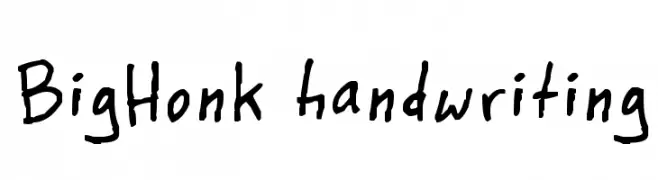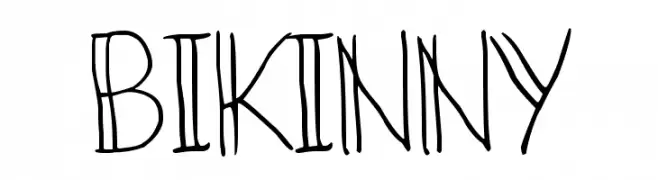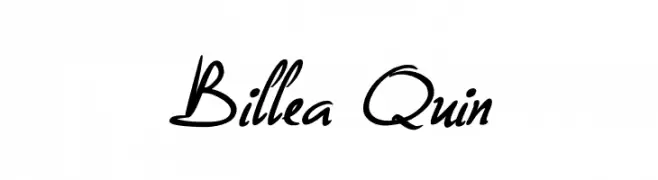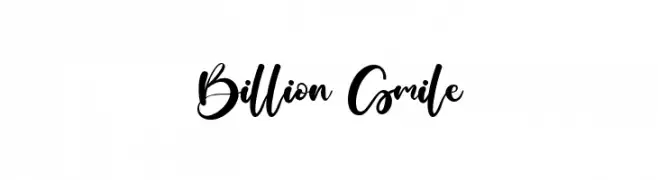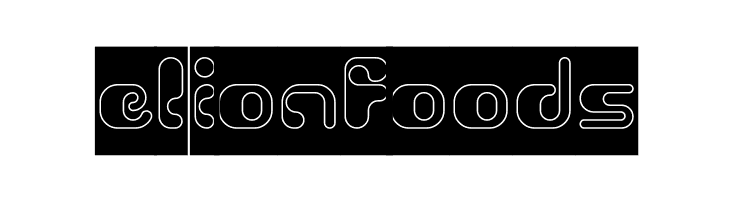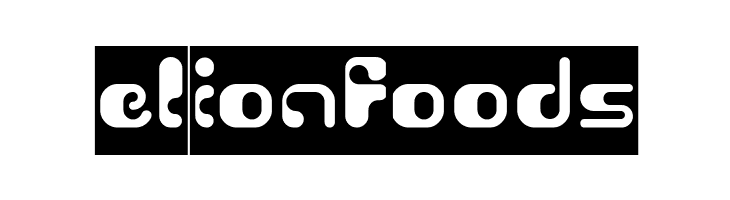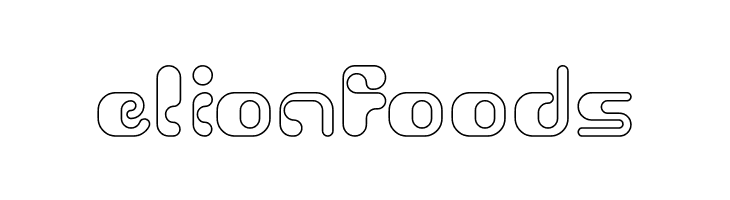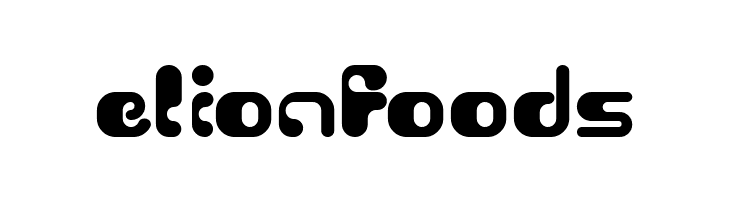
• BigHonk handwriting
A playful, casual handwritten font with irregular strokes.
• Bikinny
A playful, handwritten font with tall, narrow letters and a whimsical style.
• Billea Quin
A dynamic, cursive script font with fluid, elegant strokes.
• Billion Smile
A playful and elegant script font with fluid, connected strokes.
• Billyra
An elegant script font with flowing, cursive style and intricate swirls.
• Bina Bina
• Biological Bold
A bold, rounded font with an organic, playful design.
• Biological-Hollow
A futuristic, hollow font with rounded edges and a playful, organic style.
• Biological-Hollow-Inverse
A modern, hollow, and inverse font with rounded, fluid outlines.
• Biological-Inverse
A bold, organic font with playful, rounded characters and unique negative space.